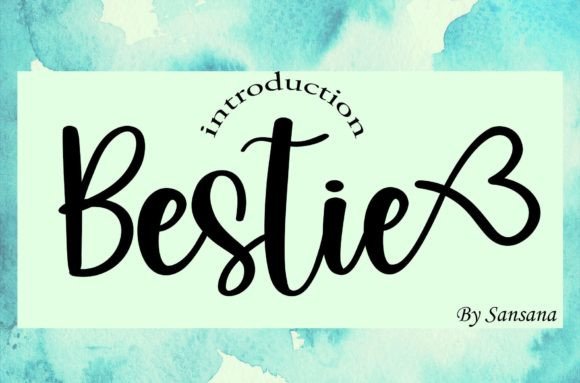
The Bestie Font: A Sweet and Romantic Script Font for Your Creative Projects
Have you ever been working on a design project, and suddenly, you’re stuck on finding the perfect font? I remember a project where I was tasked with creating a beautiful wedding invitation. My client wanted a font that was sweet, romantic, and elegant. After hours of searching, I stumbled upon the Bestie font, and it was love at first sight! 💕
An Honest Review of Bestie Font
As a designer, I always look for fonts that are versatile, easy to use, and visually appealing. Here’s my honest review of the Bestie font:
What I Love About Bestie Font
- ✨ Beautiful curves in each letter: The Bestie font features stunning curves that make it perfect for romantic and elegant designs.
- ✅ Easy to read: Despite its script nature, the Bestie font is surprisingly easy to read, making it suitable for body text and headings.
- 💕 Versatile: The Bestie font can be used for various design projects, from wedding invitations to branding and packaging.
While the Bestie font is amazing, there are a few quirks to consider:
- 🤔 Limited character set: The Bestie font might not have an extensive character set, which could limit its use for certain languages or special characters.
- ⚠️ Not suitable for body text: While it’s easy to read, the Bestie font is best used for headings and titles. For body text, you might want to pair it with a sans-serif font.
- Experiment with OpenType features, such as ligatures and stylistic alternates, to add more personality to your design.
The Story Behind Bestie Font
The Bestie font was designed with love and care by a talented type designer who wanted to create a font that would make people feel special. Inspired by classic script fonts and modern calligraphy, the Bestie font is a beautiful blend of elegance and playfulness.
| Author | Sansana |
Q: What is the Bestie font best used for?
A: The Bestie font is perfect for romantic and elegant designs, such as wedding invitations, branding, and packaging.
Q: Is the Bestie font easy to read?
A: Yes, despite its script nature, the Bestie font is surprisingly easy to read, making it suitable for headings and titles.